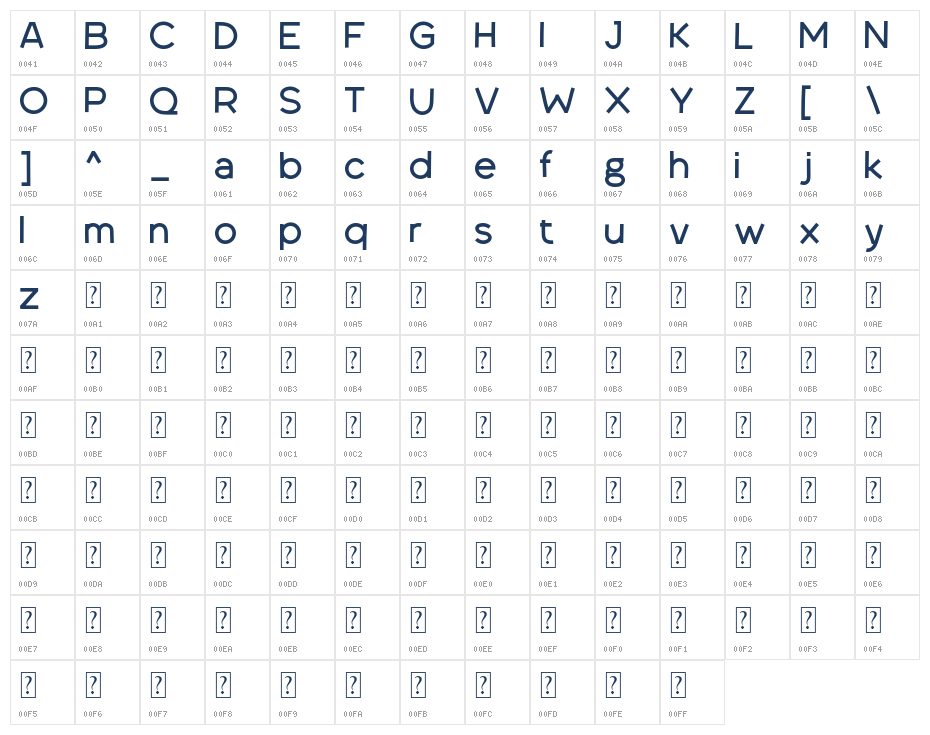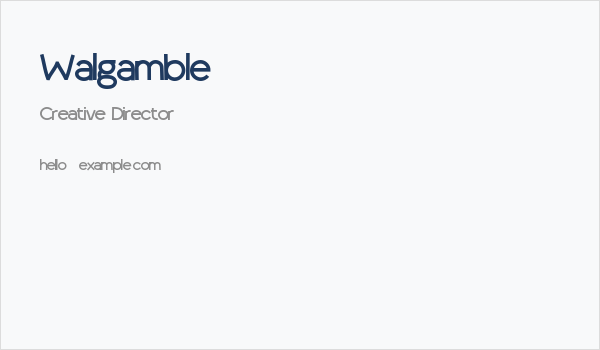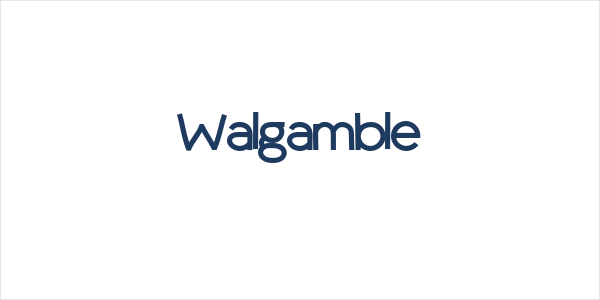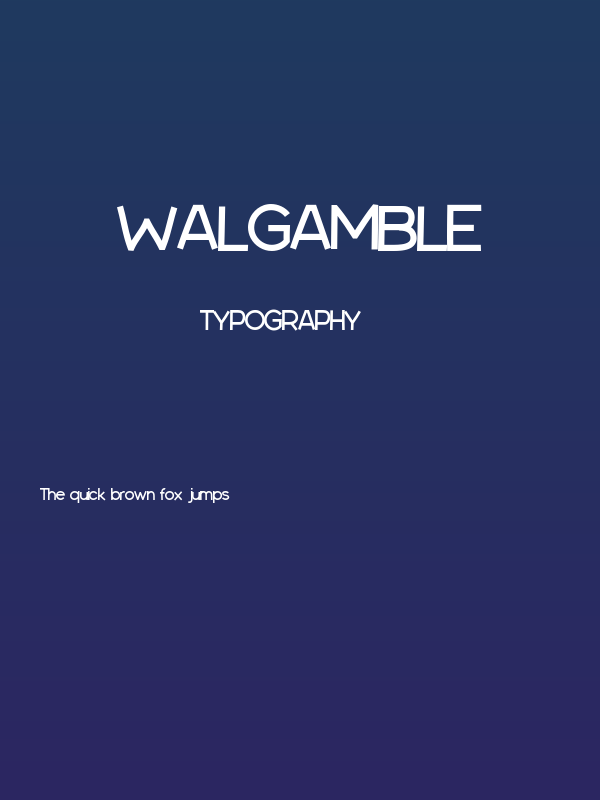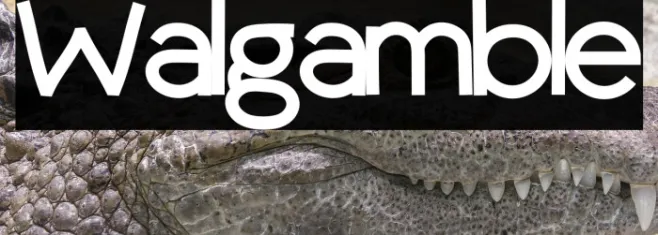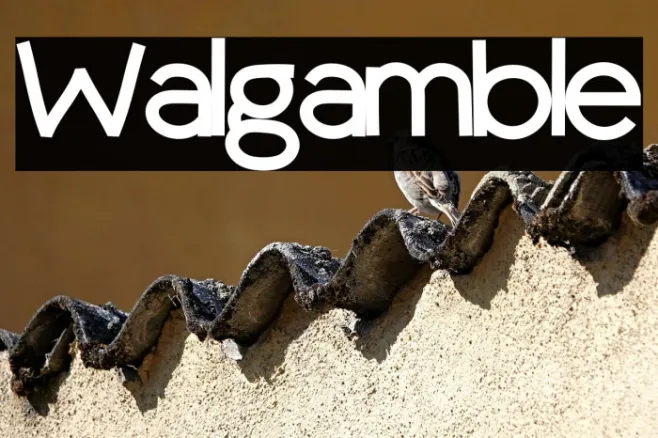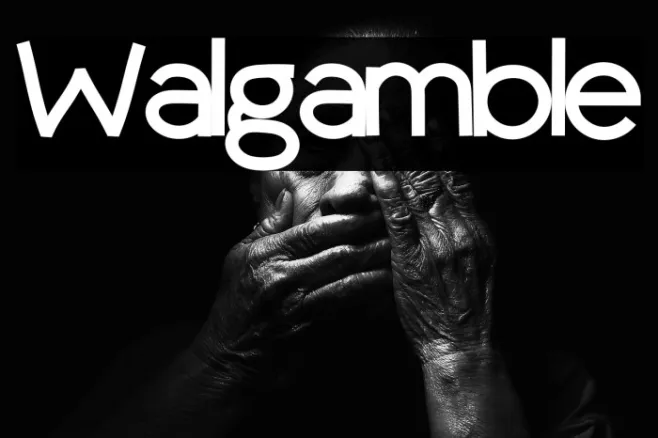
Walgamble Font
Walgamble Description
A modern, geometric sans-serif font with a slightly playful and dynamic style, characterized by clean lines and uniform stroke widths.
| Overall Style | Modern, Geometric |